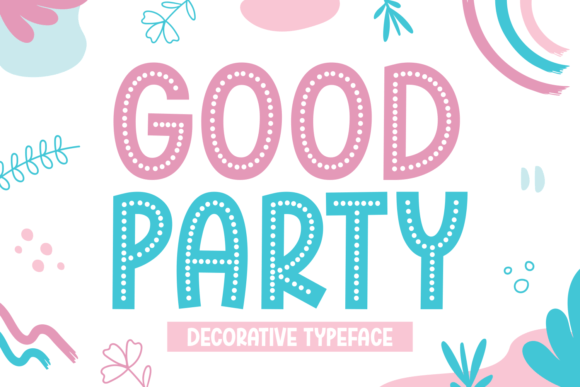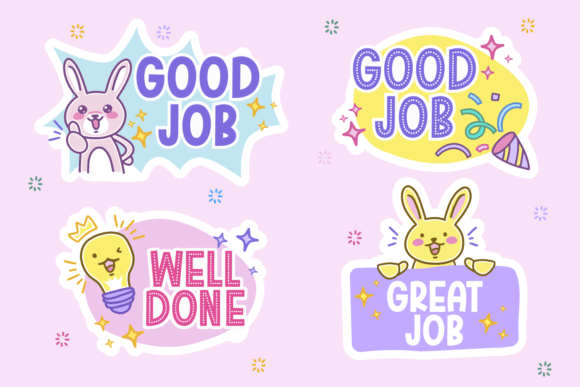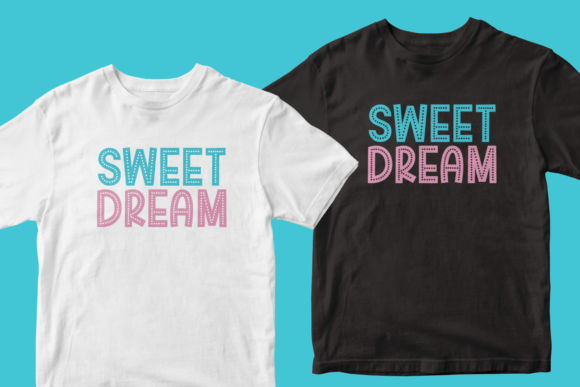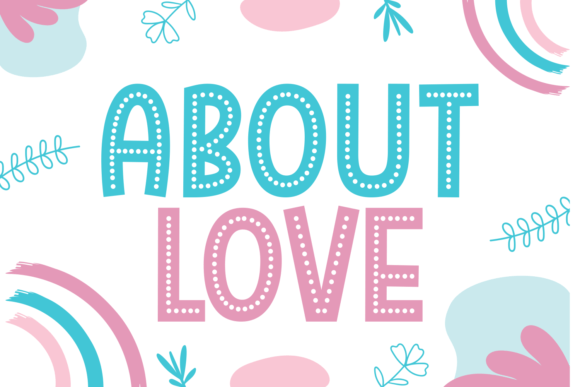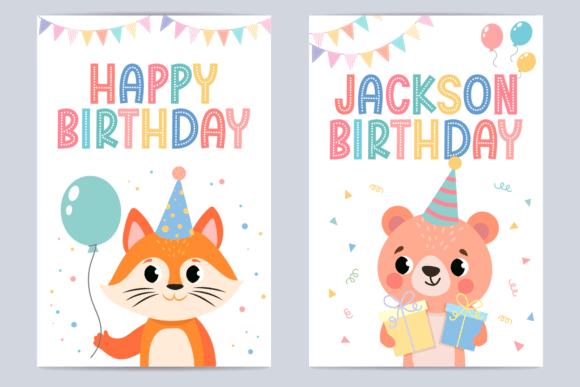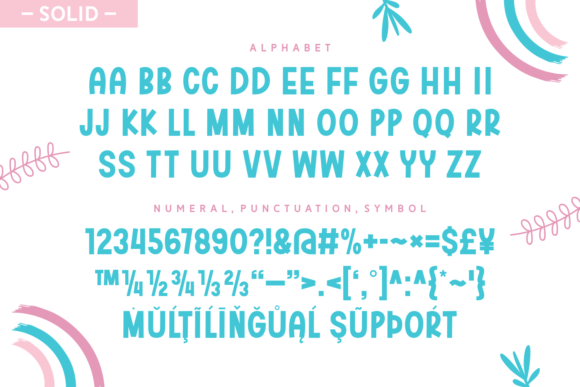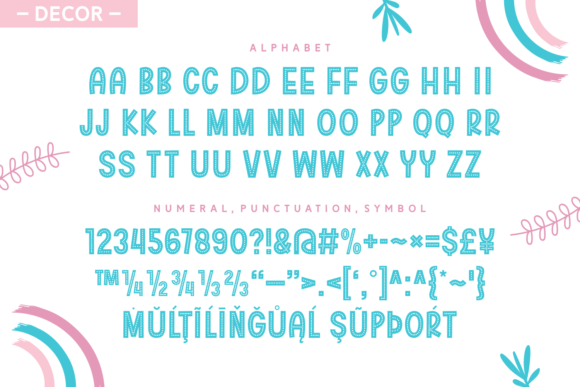
Good Party is a beautiful decorative font that features adorable dotted characters. Add some charm and sweetness to your typography designs with this lovely font! It looks perfect on birthday cards, posters, kids’ t-shirts, coloring books, websites, and more.